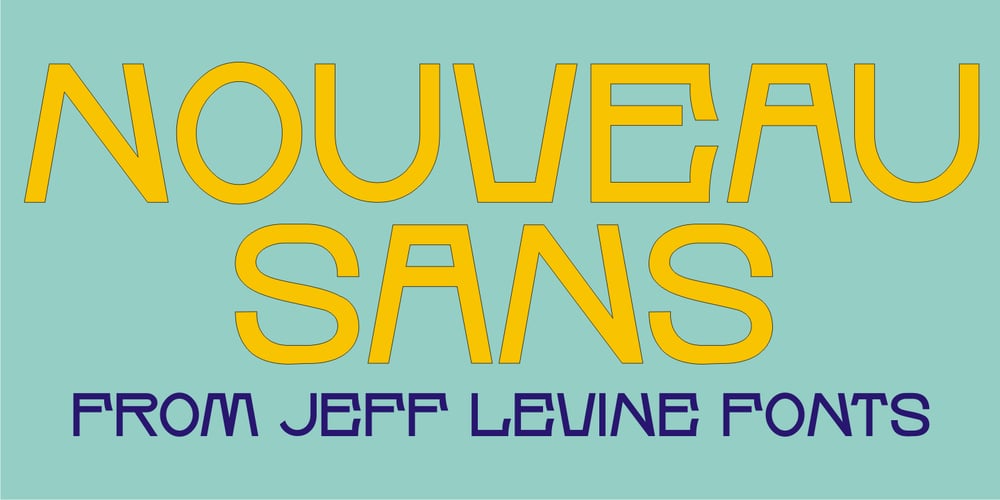
Nouveau Sans JNL Font Family was designed by Jeff Levine and published by Jeff Levine. Nouveau Sans JNL contains 1 styles and family package options. Based on a few examples of an Art Nouveau-inspired wood type, Nouveau Sans JNL has an interesting mix of angles, curves and general letter shapes that are reminiscent of the period preceding the Art Deco streamline movement.